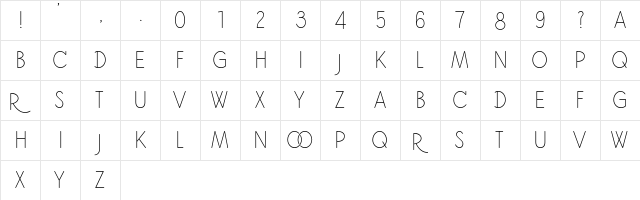
Jonah_DEMO Regular
| Designer | Tzu-yuan Yin |
Design Context for Jonah_DEMO Typeface
Jonah_DEMO offers clean, dependable letterforms without strong stylistic allegiance, making it a practical choice for designers who need flexibility.